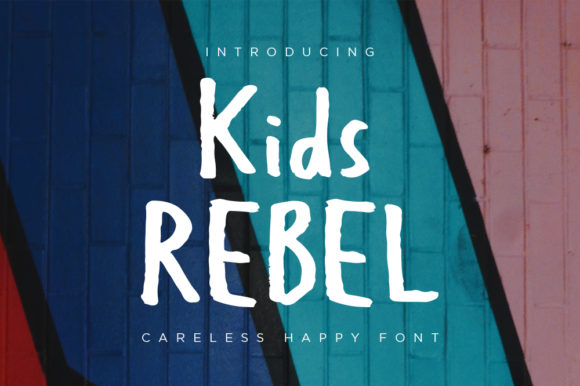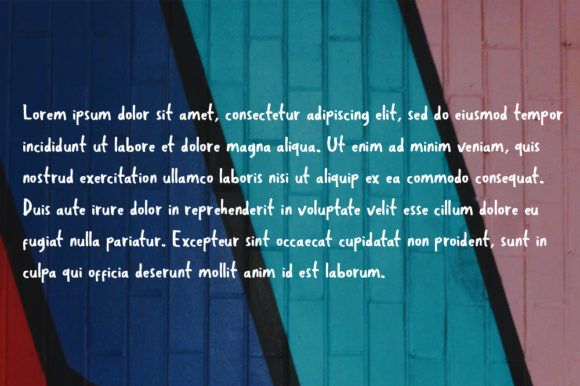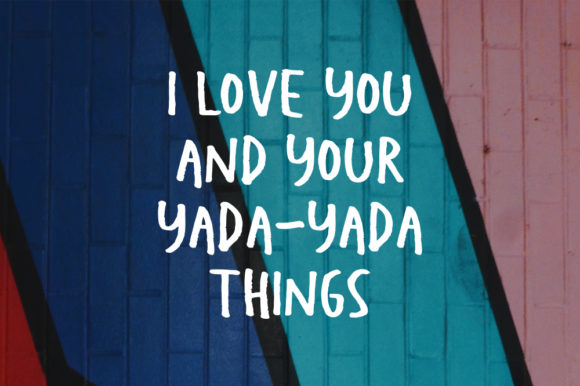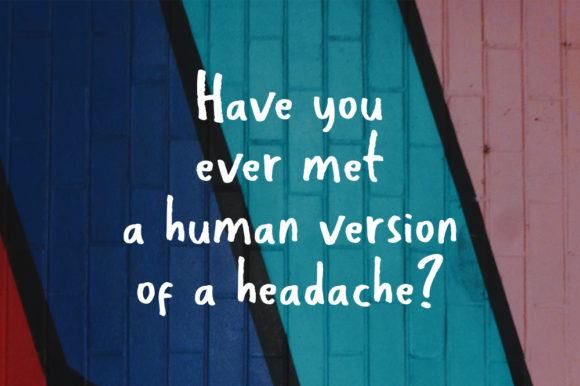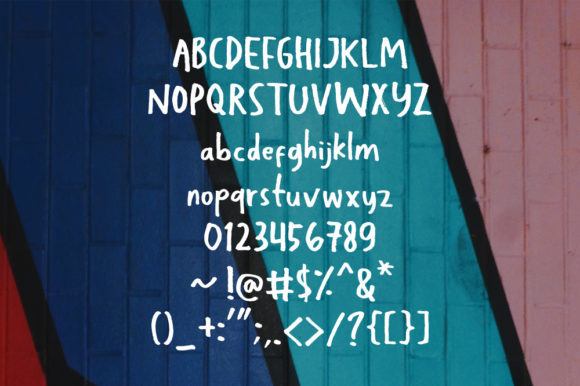
HomeScript FontsKids Rebel Font Script Fonts Kids Rebel Font FacebookXPinterestWhatsApp Kids Rebel Font Poster 2 Kids Rebel Font Poster 3 Kids Rebel Font Poster 4 Kids Rebel Font Poster 5 About Kids Rebel Font Kids Rebel is a rebellious and unfiltered script font with a contemporary feel. Get inspired by its unique style! DOWNLOAD NOW People also explored Cherokee Rose Font Grey Triblend Bella Canvas 8413 Flat Lay Asphalt Bella Canvas 100B Romper Suit Botana Font Bellania Font Beautiful Handmade Font Elmono Font Friendship Font Without You Font 333 0 TagsKids Rebel Font Previous articleSignature Collection FontNext articleAnther Brush Font LEAVE A REPLY Cancel reply Comment: Please enter your comment! Name:* Please enter your name here Email:* You have entered an incorrect email address! Please enter your email address here Website: Save my name, email, and website in this browser for the next time I comment. Personal Use Free Deftone Personal Use Free Read more about this font Hanberra Personal Use Free Read more about this font Bestlife Personal Use Free Read more about this font Lumber Personal Use Free Read more about this font BLOG Where to Buy American Fonts Online in 2024 Where to Buy American Fonts Online: The Ultimate Guide for 2024 Looking for the perfect American font to elevate your design projects? You're in the... Elegant Wedding Invitation Fonts – Handwritten & Script Fonts Fonts That Capture the Spirit of New York City Top 10 Handwritten Fonts That Elevate Your Designs